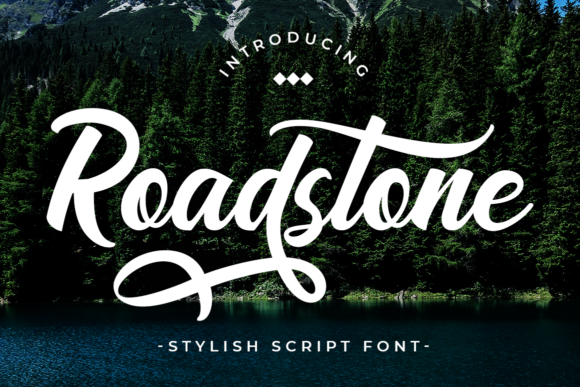
Introducing Road Stone Font, a beautiful and captivating handwritten script font that will elevate your designs with its charming and authentic touch. Embark on a creative journey as you explore the boundless possibilities of this remarkable font, crafted with the utmost care by putracetol.
Road Stone Font is more than just a font; it's a gateway to a world of creativity and self-expression. Feel the warmth of its natural and unique style as you weave your words into captivating designs. Let your imagination soar as you discover the endless applications of this versatile font.
With Road Stone Font, you hold the key to unlocking a treasure trove of creative possibilities. Craft stunning posters that leap off the page, with each letter dancing across the surface in a symphony of visual delight. Create eye-catching social media graphics that captivate your audience and leave them longing for more. Transform your website into a visual masterpiece, where every word carries weight and elegance.
Road Stone Font's PUA encoding makes it a breeze to access all of its glyphs and swashes. Unleash your creativity and let your designs bloom with individuality. Whether you're a seasoned designer or just starting your creative journey, Road Stone Font is the perfect companion for your artistic endeavors.
Don't settle for ordinary when you can embrace the extraordinary. Choose Road Stone Font and watch your designs come alive with a unique charm that will leave a lasting impression. Download it today and unlock the gateway to a world where creativity knows no bounds.